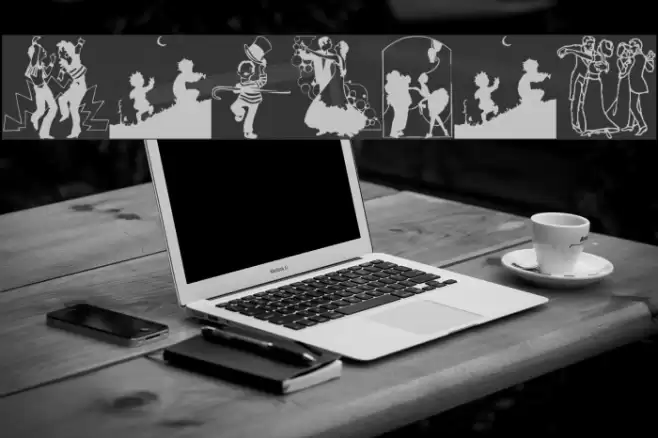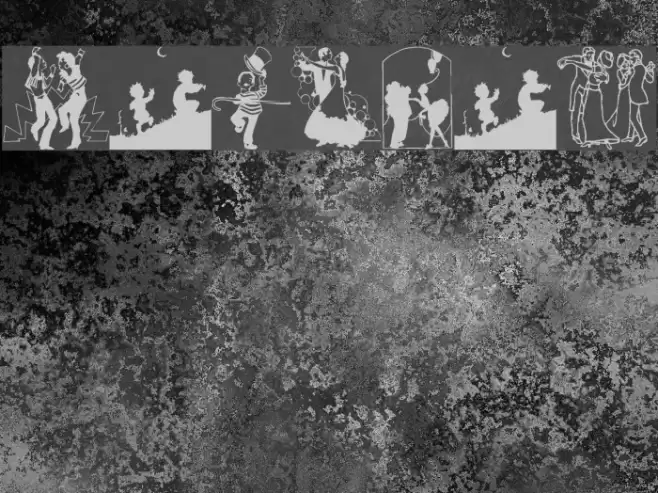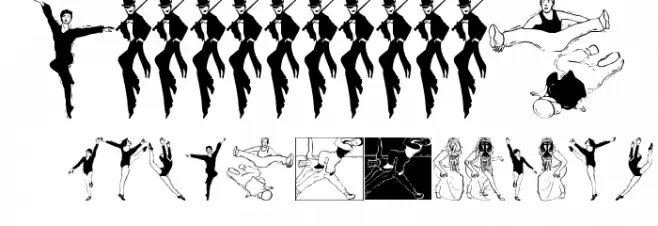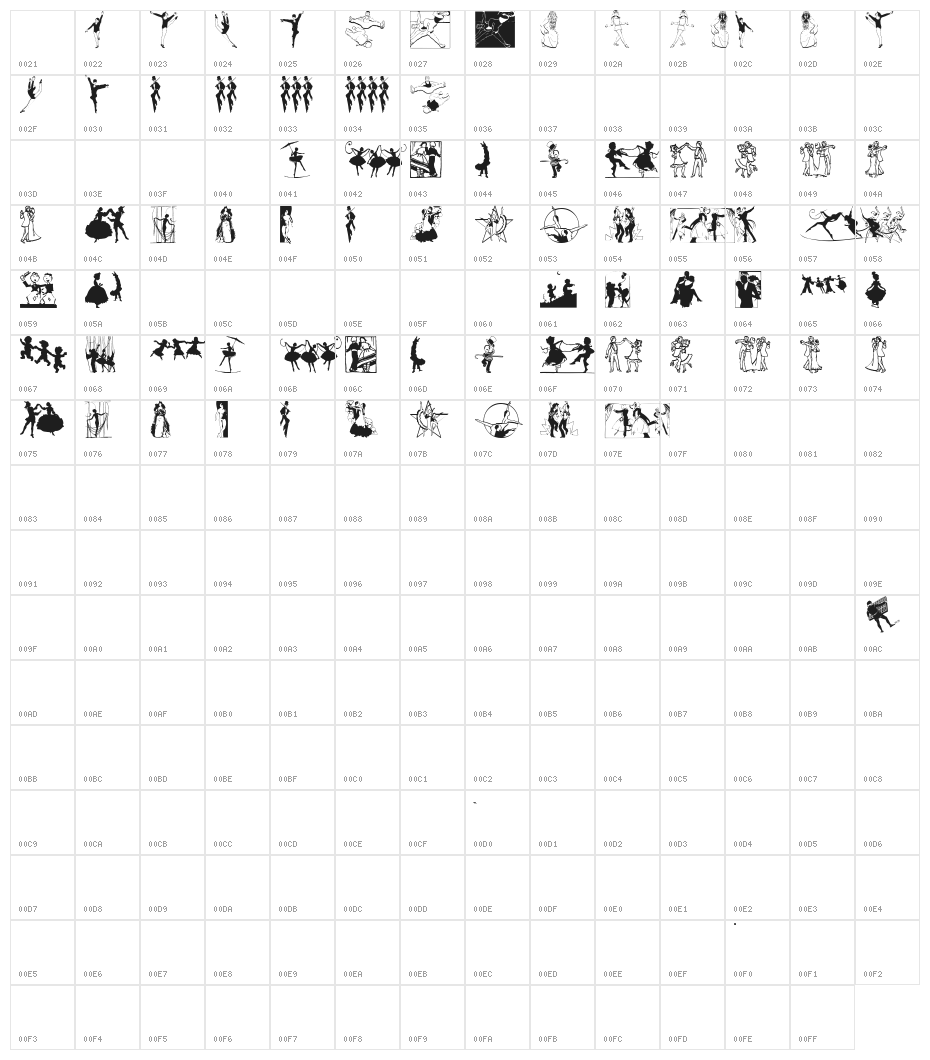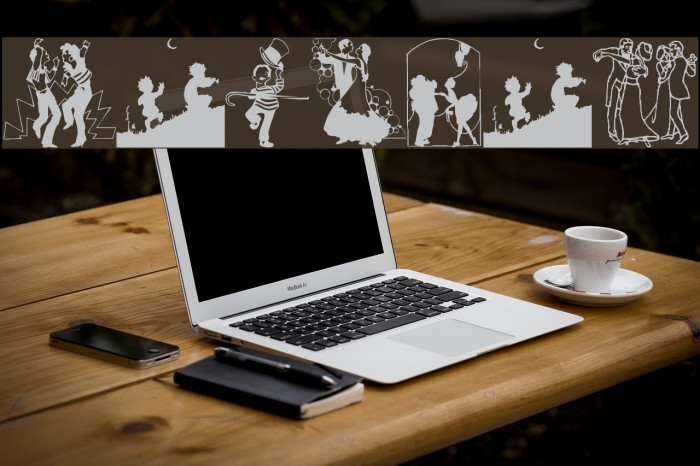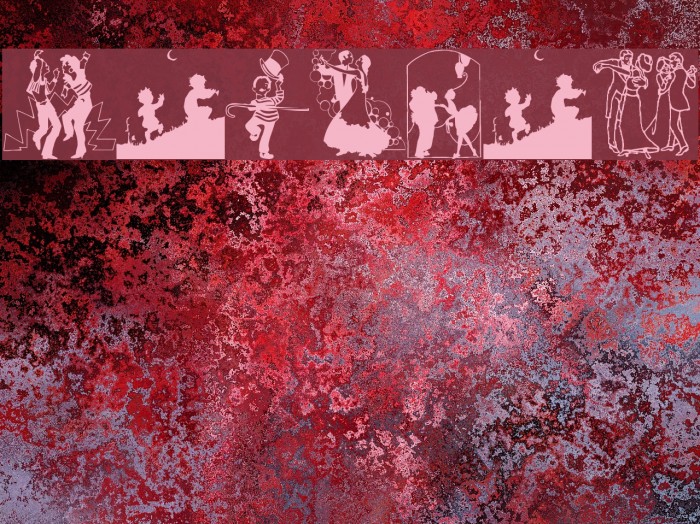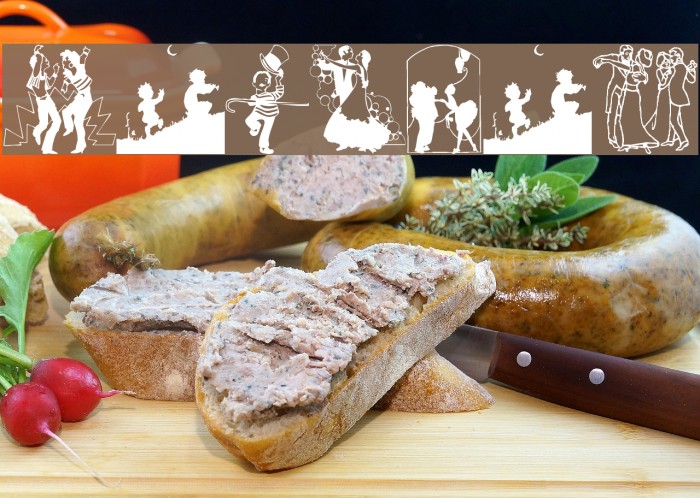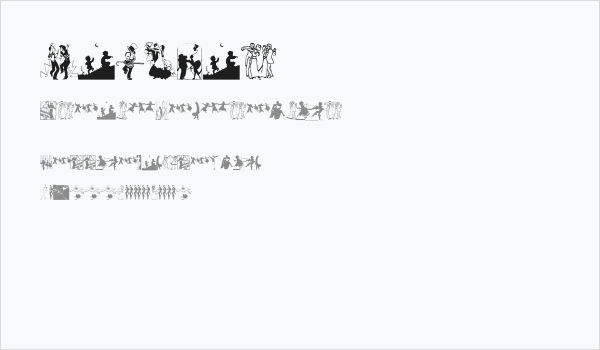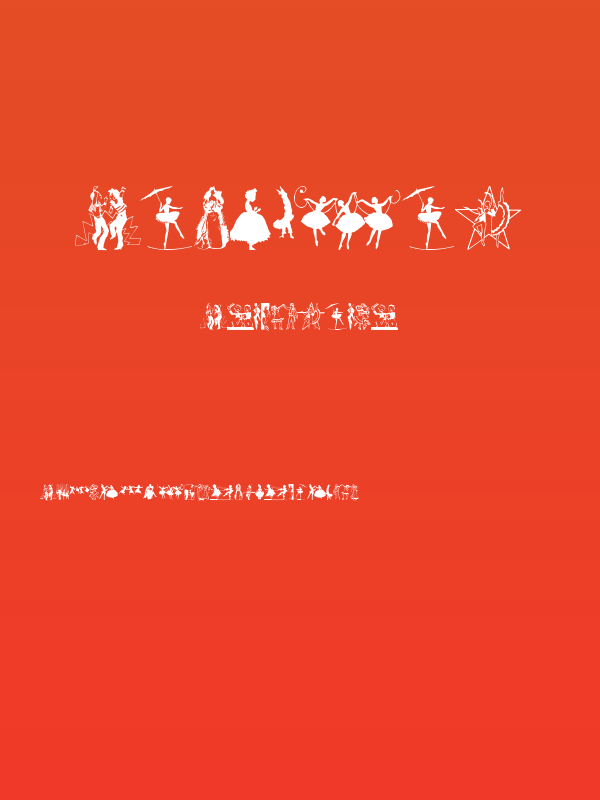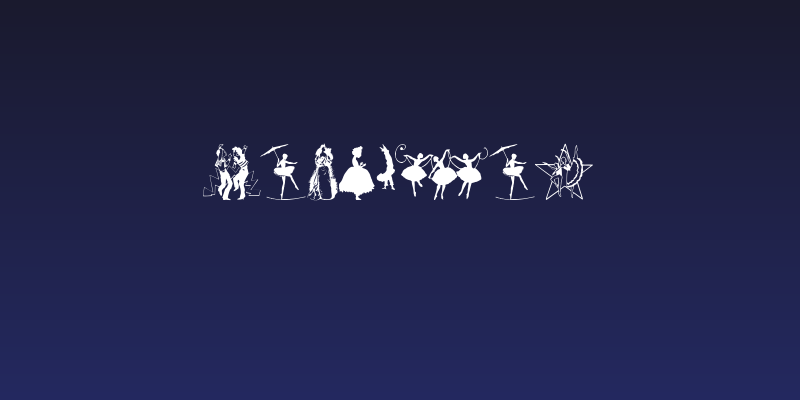
Tanzbar Font
Tanzbar Description
A decorative dingbat font featuring detailed silhouettes and line art of dancers in various poses and styles, including couples, solo performers, and groups, with a mix of vintage and theatrical themes.
A dance-themed decorative dingbat font with expressive dancer illustrations from Uncategorized fonts.
- Proposed Projects: Event posters, dance studio branding, invitations, themed party materials, decorative borders, and educational materials about dance.
- Overall Style: Decorative, Theatrical, Vintage
- Use Case: Logos, Posters, Decorative elements